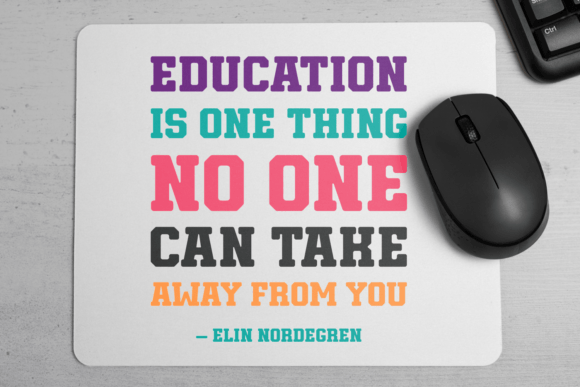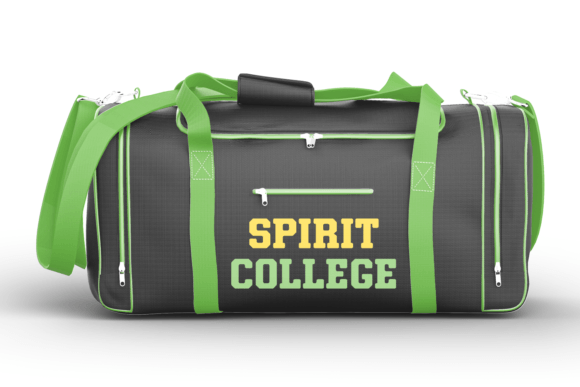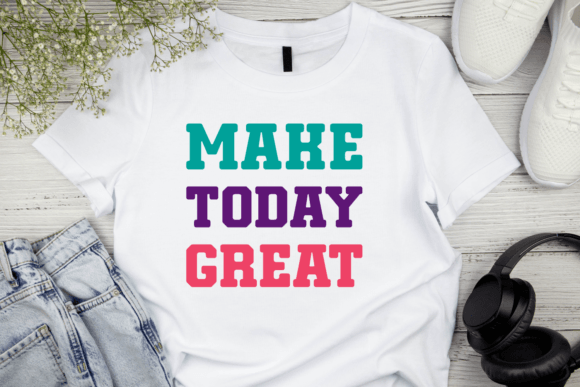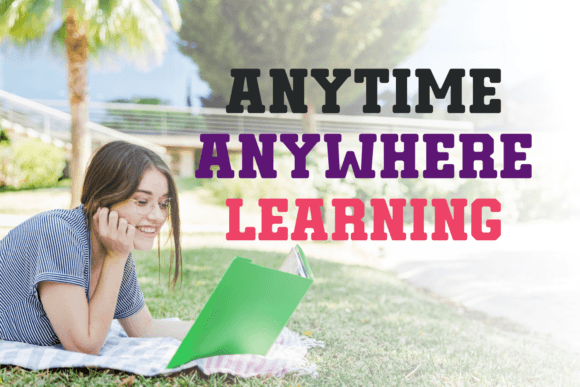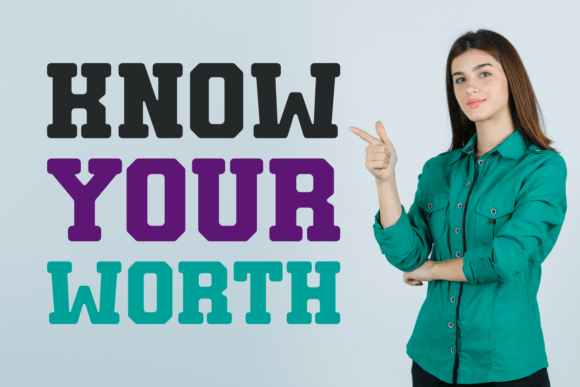
Introduction to Impact School Font
Impact School is a slab serif font that’s a class above.
This font’s clean, elegant contours make it an ideal choice for magazine features and poster art, while its robust, bold personality stands out on t-shirt designs and book covers Impact School truly shines in the sporting and collegiate realms, artfully capturing the spirit of competition and academia.